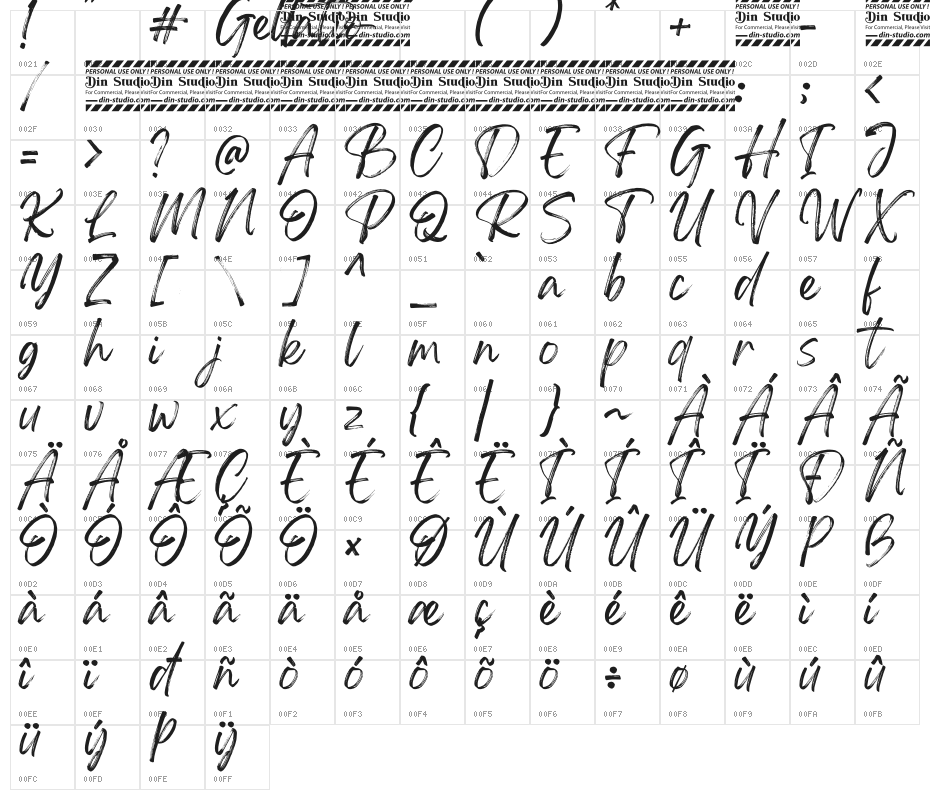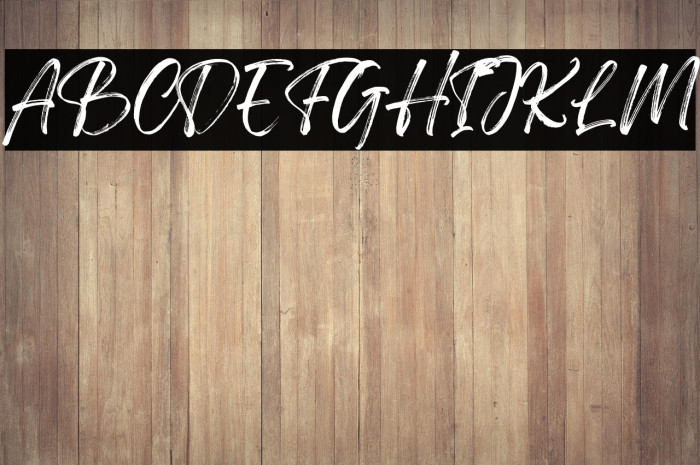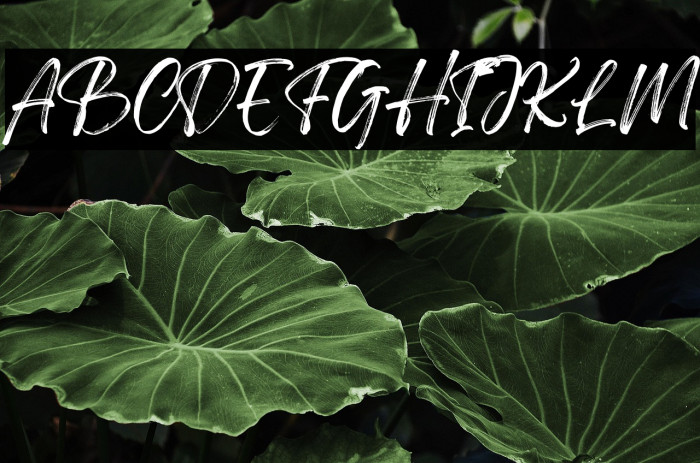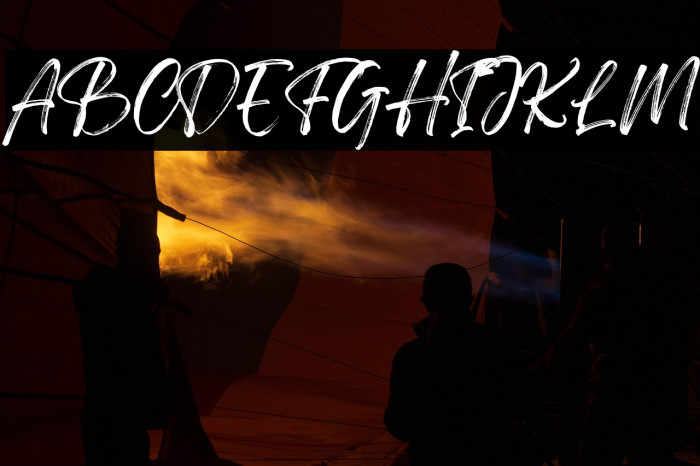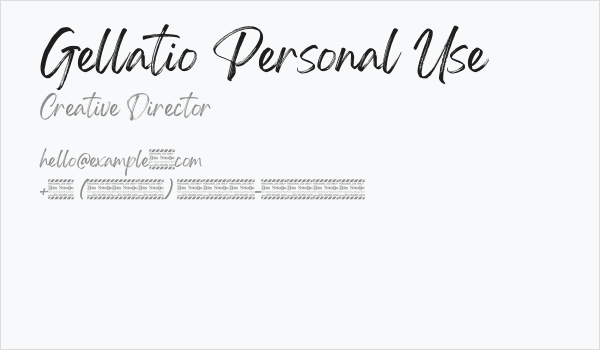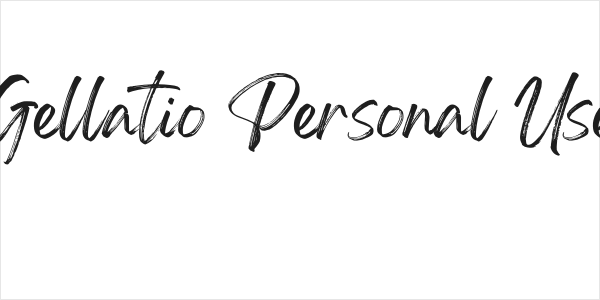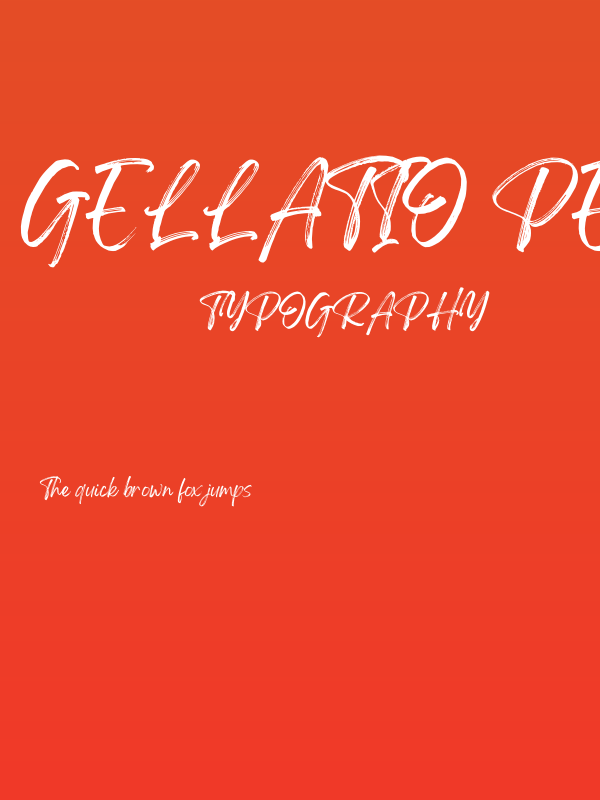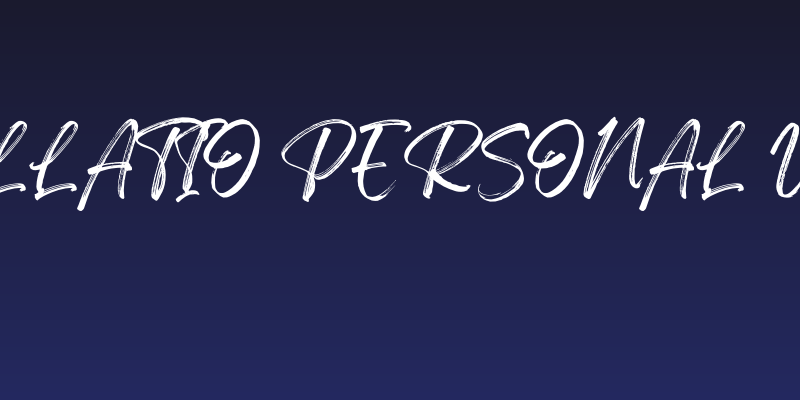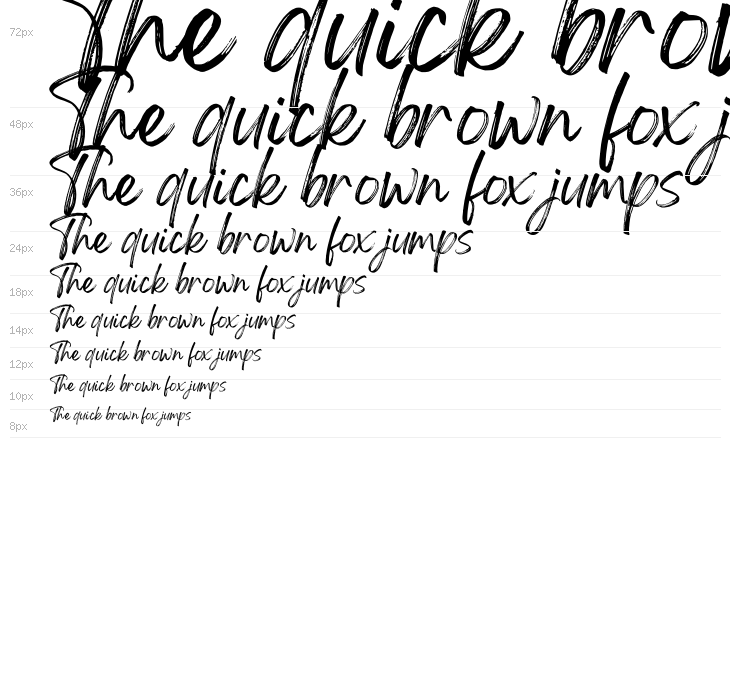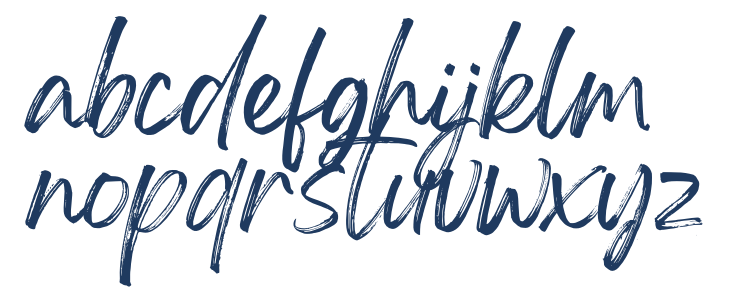
Gellatio Personal Use Font
Gellatio Personal Use Description
This font features a dynamic and energetic handwritten style, characterized by its bold and expressive strokes. The letters exhibit a natural flow with a slightly slanted orientation, giving it a casual yet sophisticated appearance. The brush-like texture adds a sense of movement and artistic flair, making it ideal for creative and informal designs. The uppercase and lowercase letters maintain a consistent style, with a playful yet elegant touch. The special characters complement the overall aesthetic, enhancing its versatility for various design needs.